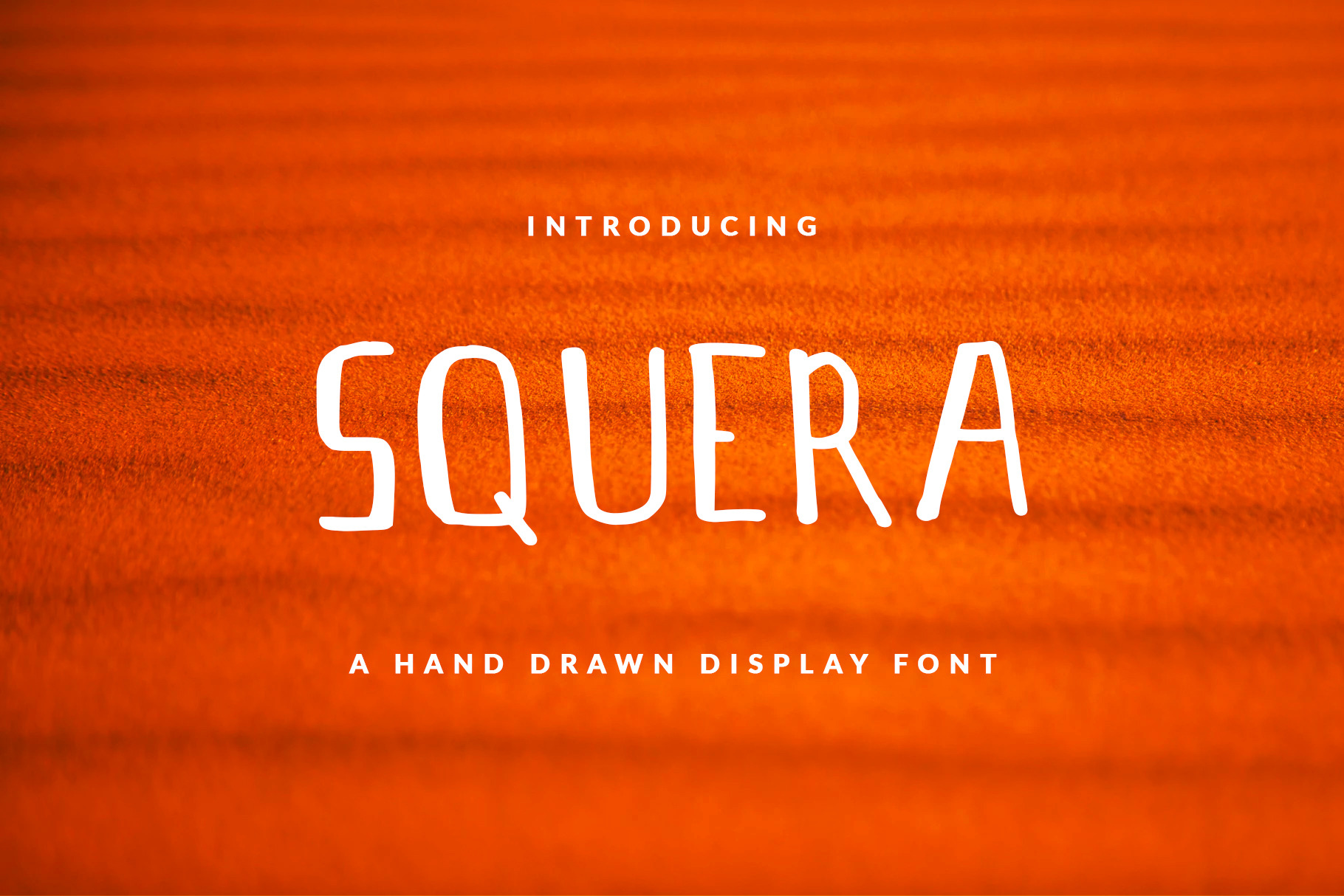
SQUERA Font For Header & Book Text
Sans serif hand-drawn display font called SQUERA was designed for modern, classic, feminine, unique and other style also fit for Header website, general use for header text, kids stories, books, poems and other long text